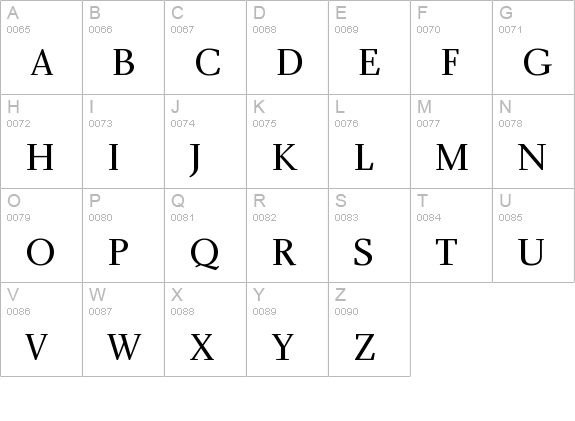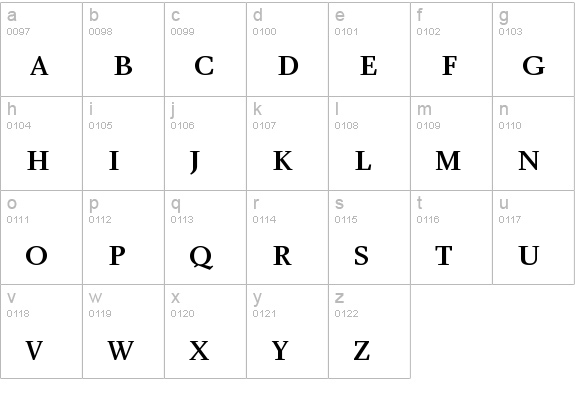
Charlotte Small Caps Plain Font Details
Charlotte Small Caps Plain is a sophisticated and elegant font that exudes timeless charm and classic appeal. With its clean lines and subtle curves, this font is perfect for adding a touch of professionalism and refinement to any project. The small caps feature adds a unique flair, making it stand out from traditional fonts. The best part is that Charlotte Small Caps Plain is available for free download at FontsMarket.com. This means you can easily access this high-quality font without any cost, making it a valuable addition to your design toolkit. Whether you're working on a branding project, invitations, or any other creative endeavor, Charlotte Small Caps Plain is sure to elevate your work with its understated beauty and versatility. Download it today and see for yourself the impact this font can make on your designs.